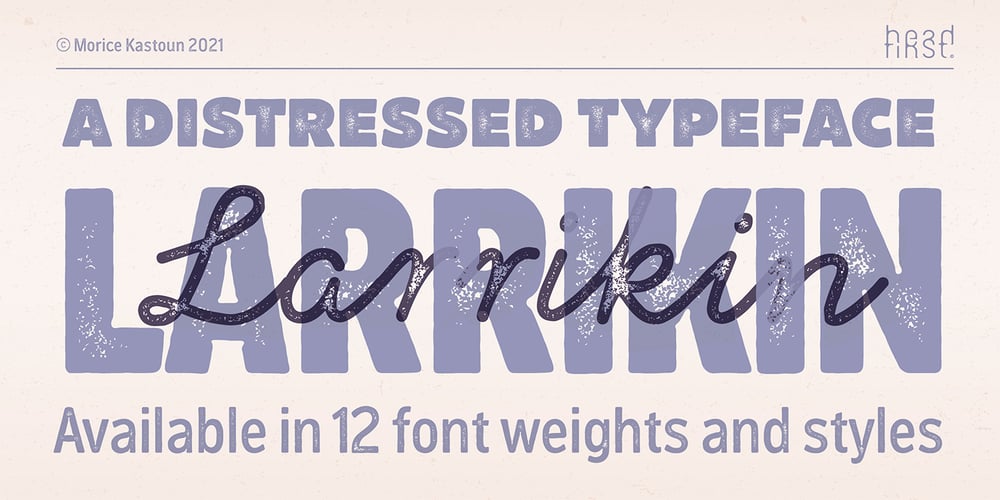
Larrikin
Larrikin font
Larrikin Font Family was designed by Morice Kastoun and published by HeadFirst. Larrikin contains 12 styles and family package options. The distressed letterforms hark back to early printing process using hand carved wood cut letters.The typeface is available in 6 weight with both Rough & Solid variations.